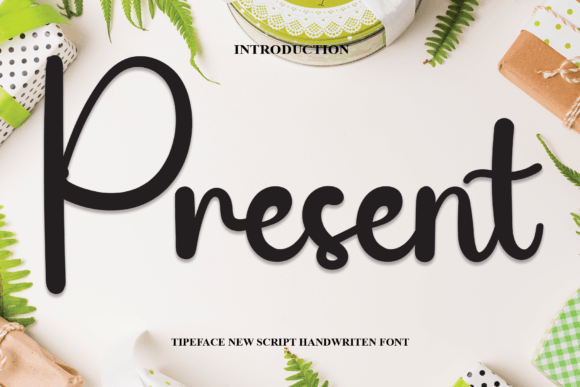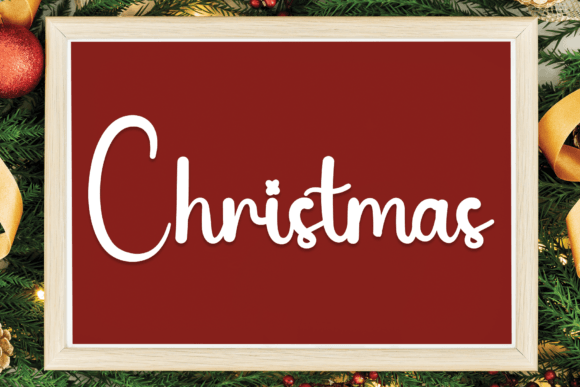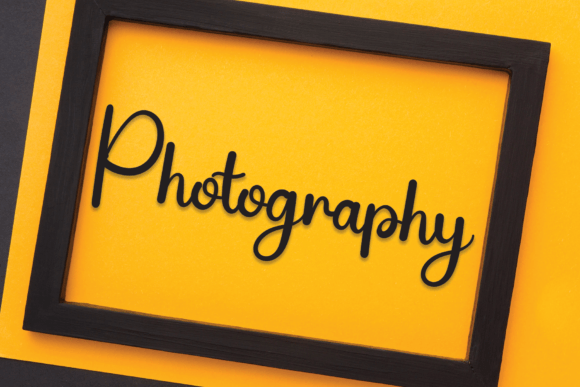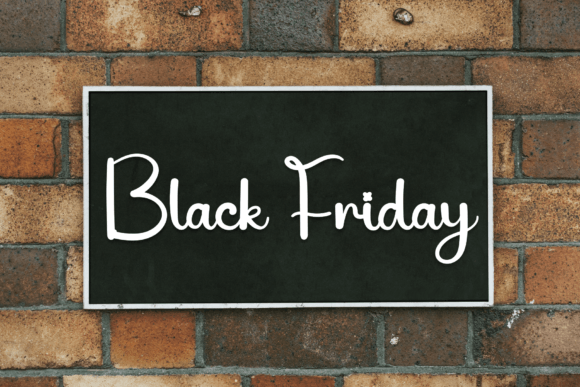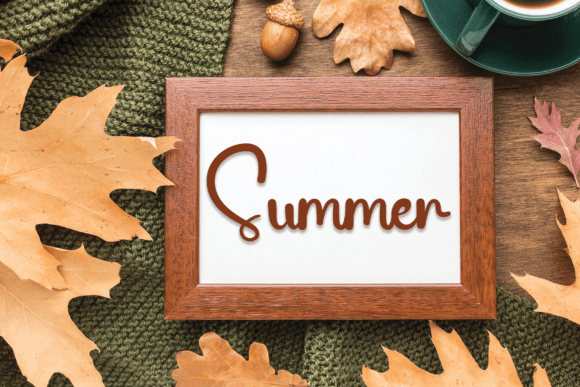
About Present Font
Present Font is a charming handwritten typeface that blends sweetness with simplicity. Its soft, flowing strokes create a warm, approachable look that fits perfectly with romantic and personal design projects. While it maintains a casual appearance, the font still feels polished enough to elevate your designs with grace.
Whether you’re working on wedding invitations, thank-you cards, social media graphics, or personal notes, this font delivers a gentle and heartfelt vibe that’s hard to ignore.
Why Use Present Font in Your Projects?
Although there are many handwritten fonts out there, Present Font brings a unique balance of cuteness and readability. It’s easy on the eyes and suitable for both print and digital uses. In addition, the consistent letterforms ensure your messages remain clear, even at smaller sizes.
Here’s what makes it stand out:
Soft and welcoming style
High readability on any background
Perfect for both formal and casual designs
Works beautifully with minimalist layouts
Ideal for a Variety of Creative Uses
Thanks to its sweet and versatile nature, Present Font is suitable for a wide range of projects, such as:
Wedding invitations and bridal shower decor
Love letters and greeting cards
Personalized gifts and DIY crafts
Brand logos for soft product lines
Instagram quotes and feminine blog titles
Because of its well-balanced design, Present Font complements images and layouts without overpowering them.
If you’re searching for afont that captures love, warmth, and a touch of playfulness, PresentFont might be the perfect match. It adds personality to your work while keeping it elegant and friendly. Download Present Font today and start enhancing your creative projects with this delightful handwritten typeface.